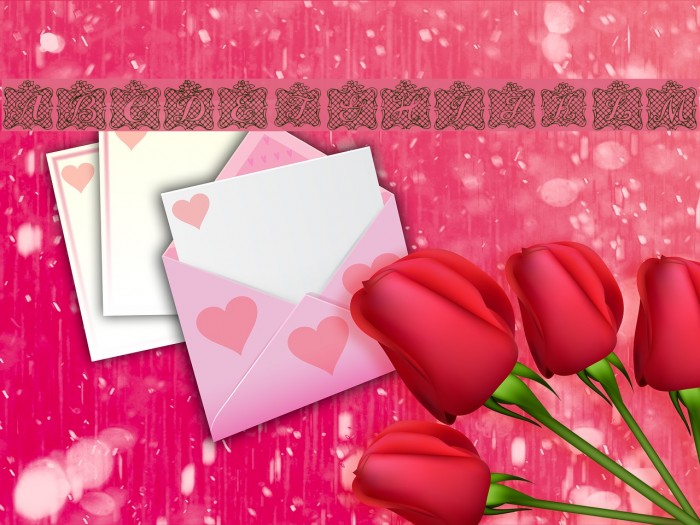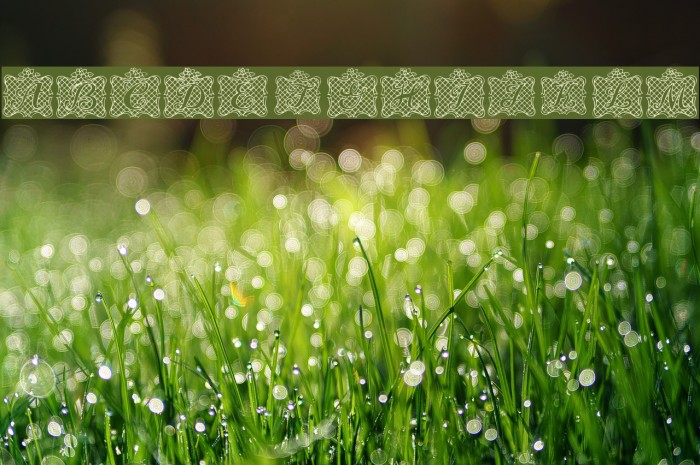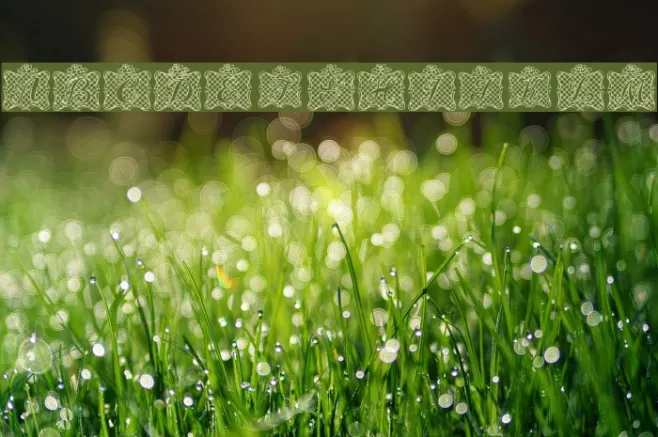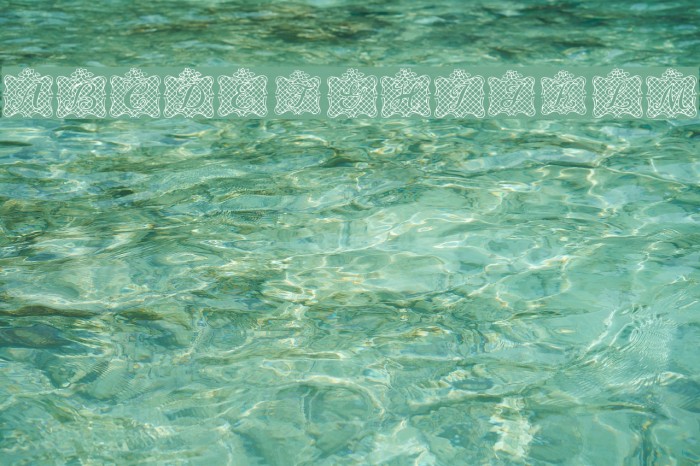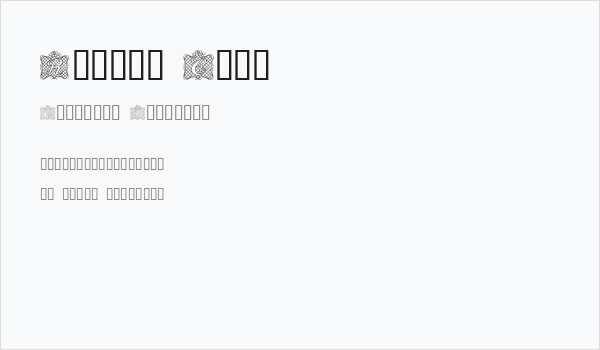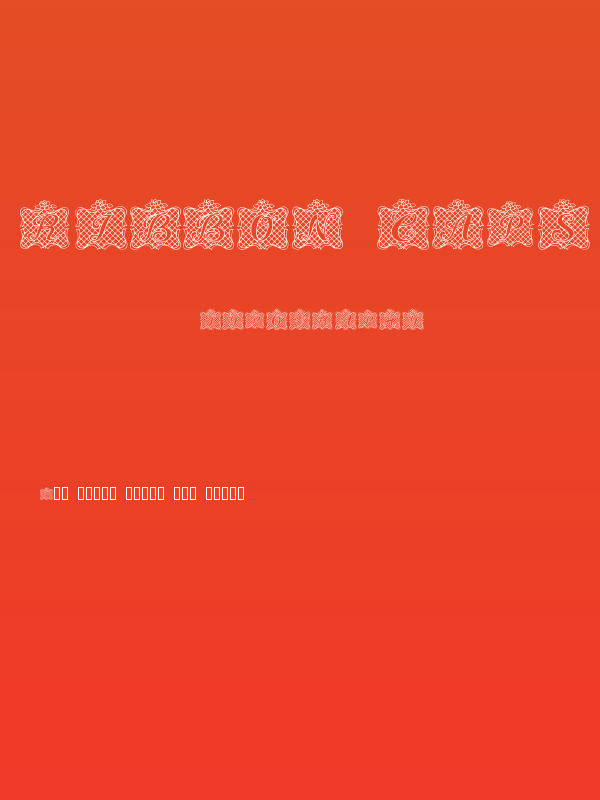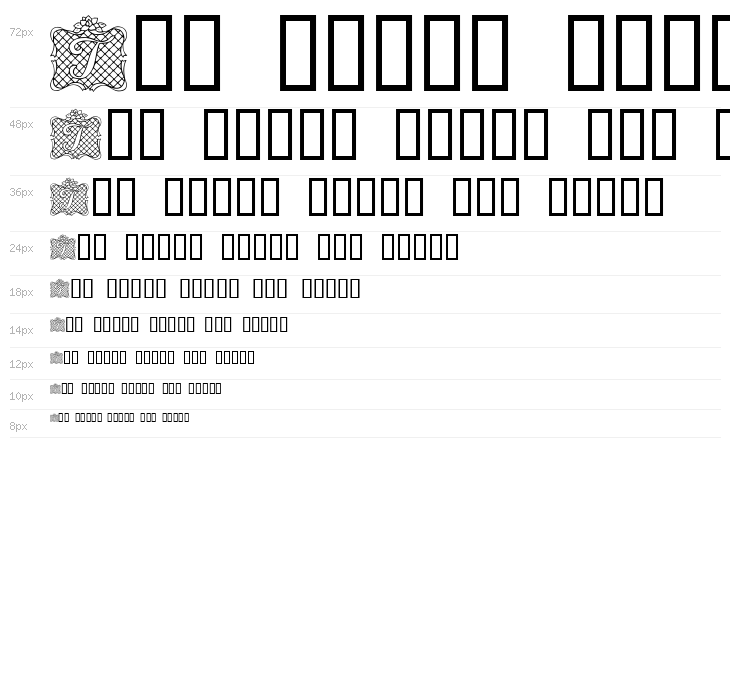
Ribbon Caps Font
Ribbon Caps Description
This font features an intricate, decorative style with elaborate ribbon-like designs forming each letter. The uppercase letters are highly ornamental, with each character enclosed in a square frame, creating a sense of elegance and complexity. The lowercase letters and numbers are not visible in the image, suggesting that this font may be primarily intended for decorative purposes rather than practical text use. The detailed patterns within each letter give it a vintage and artistic feel, making it suitable for projects that require a touch of sophistication and creativity.
| Overall Style | Vintage, Decorative |
| Use Case | Headlines, Decorative text |
| Proposed Projects | Ideal for wedding invitations, vintage-themed posters, decorative headings, and artistic projects requiring a touch of elegance. |